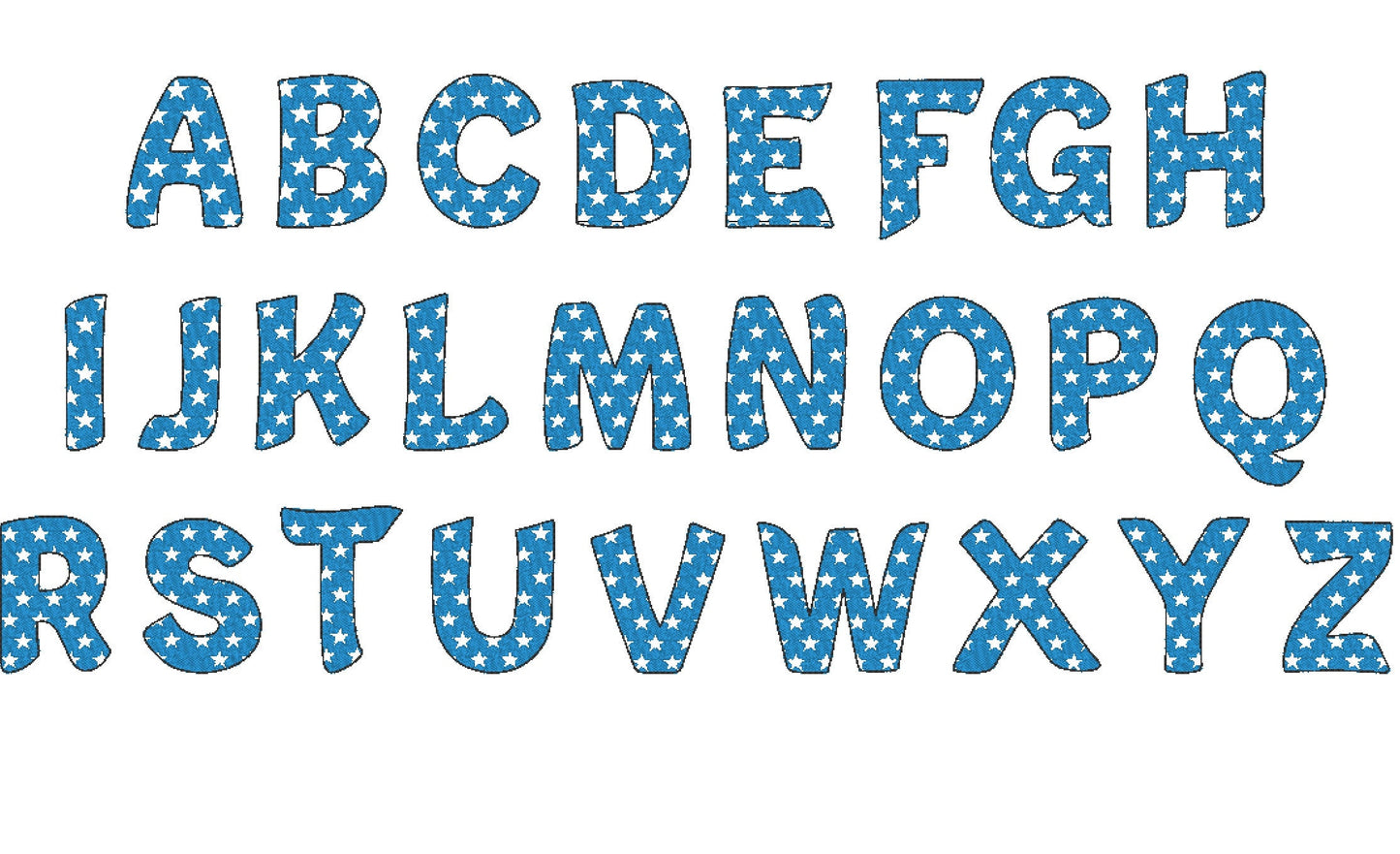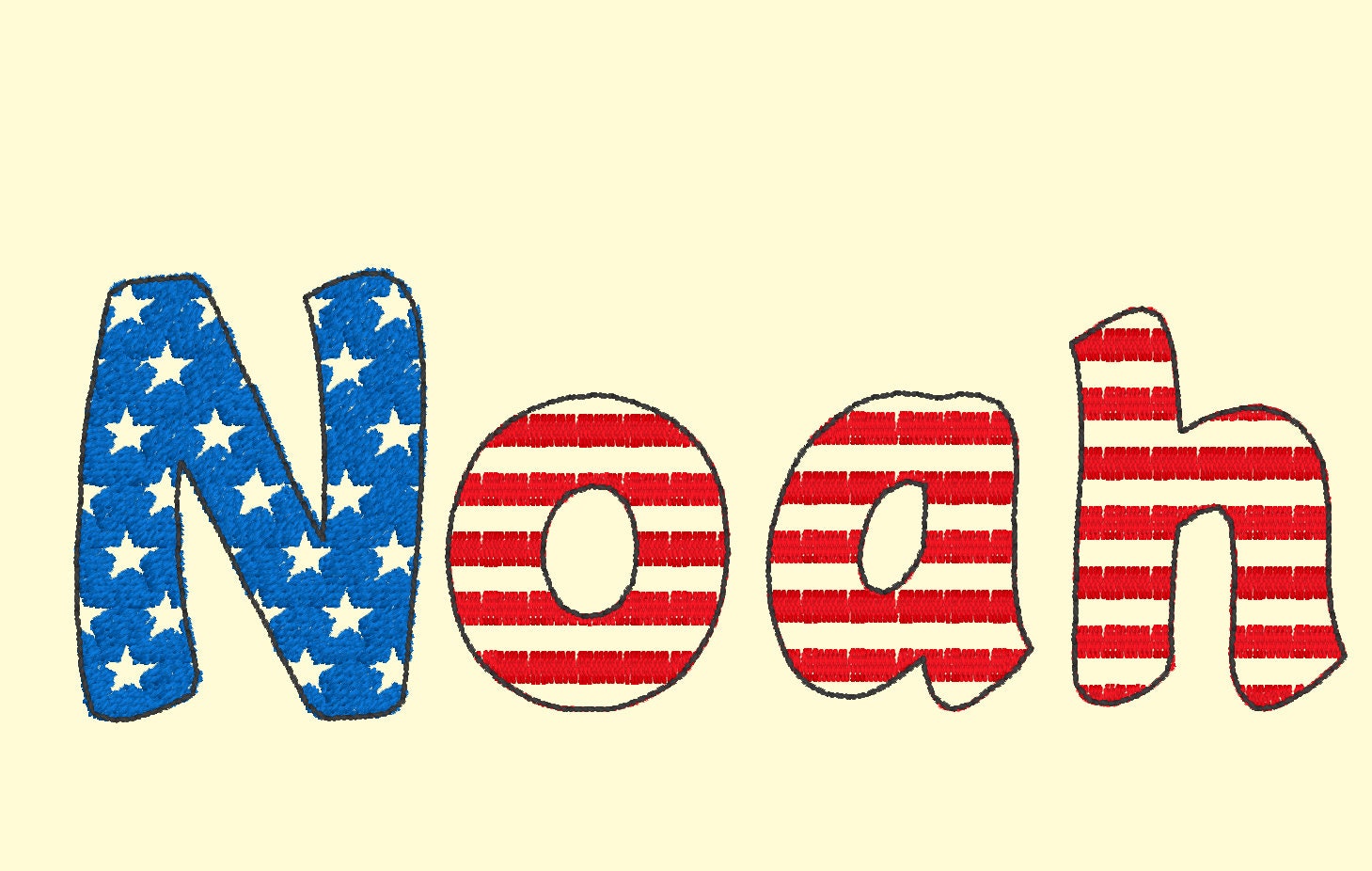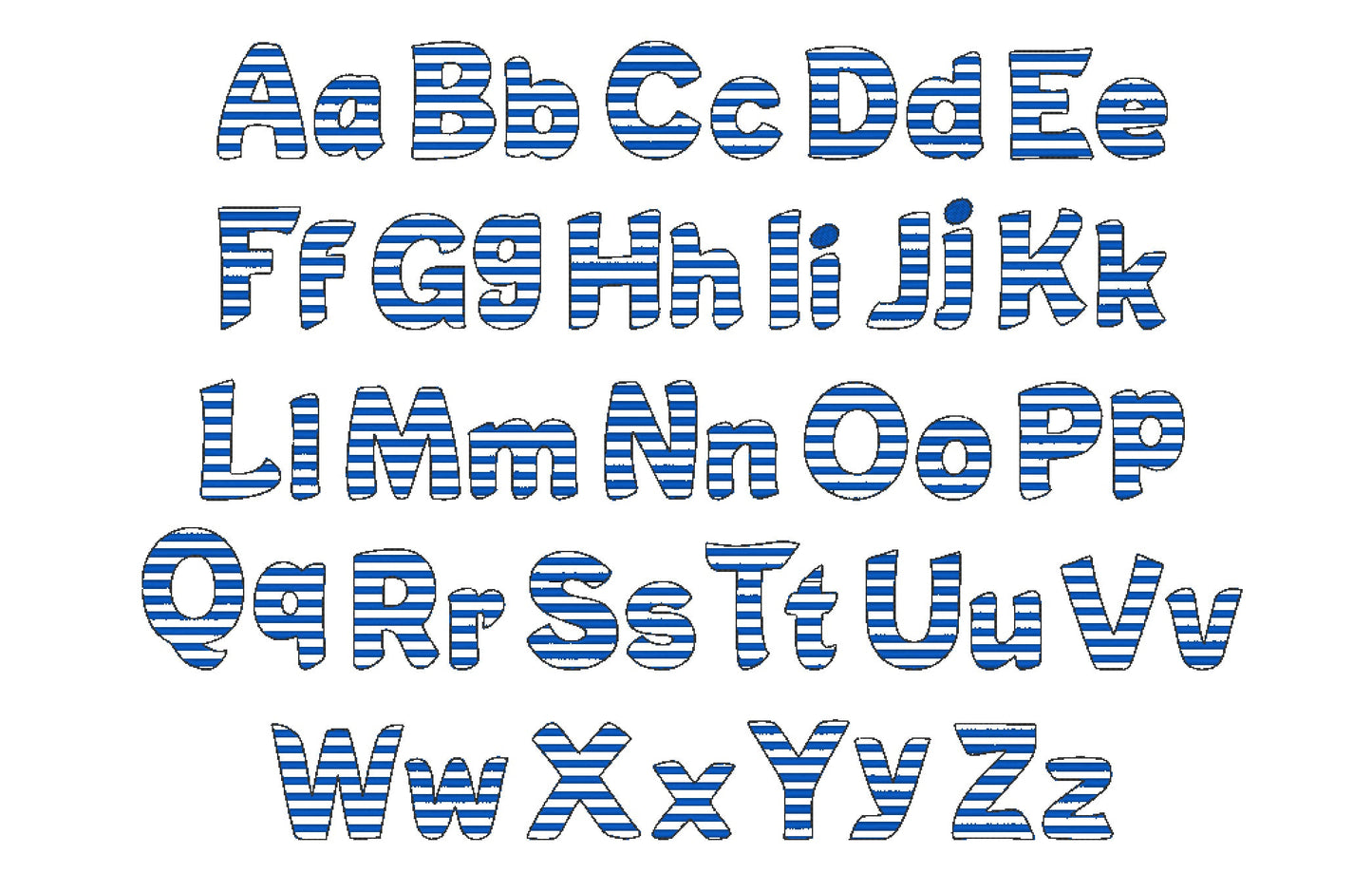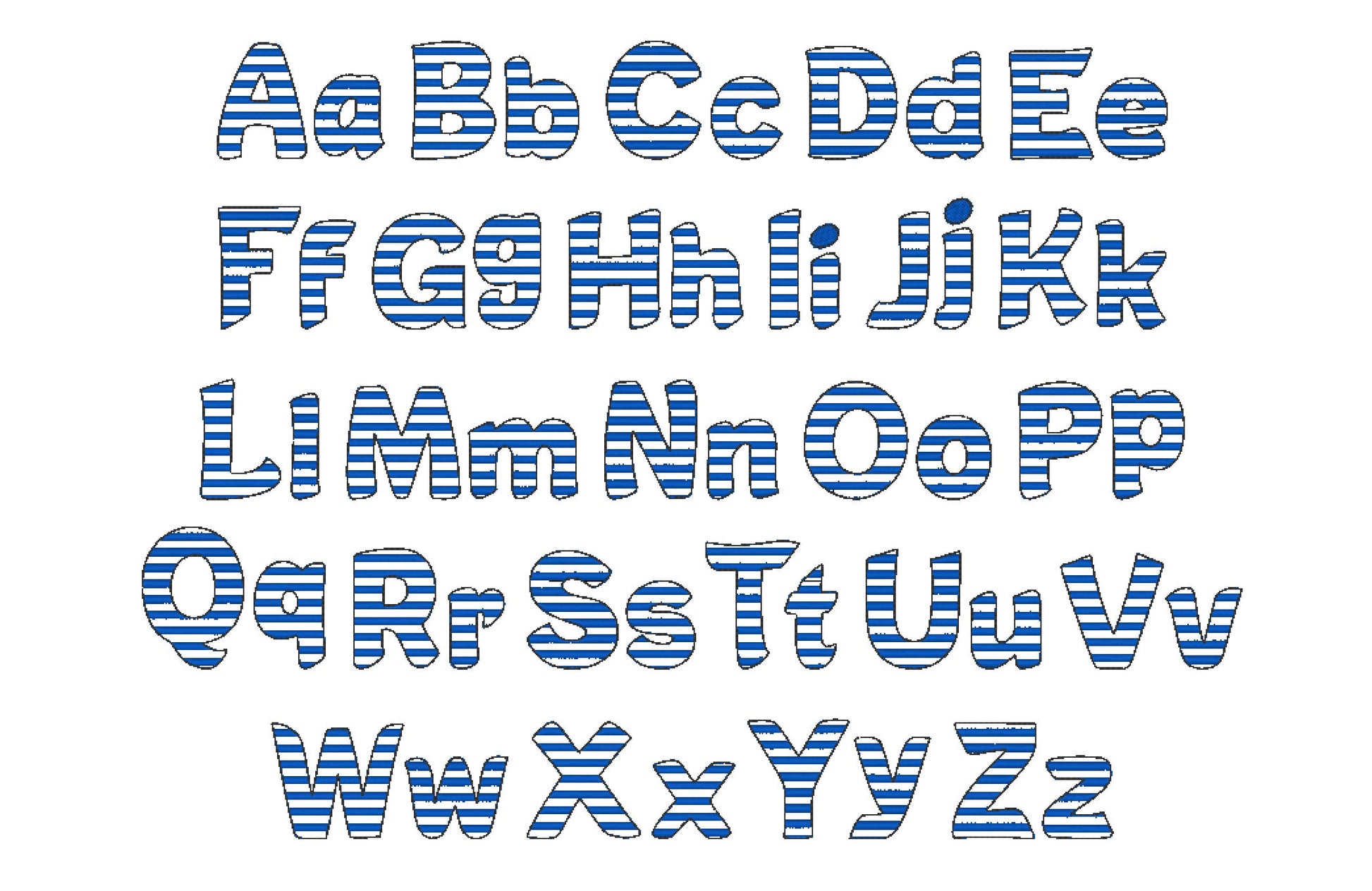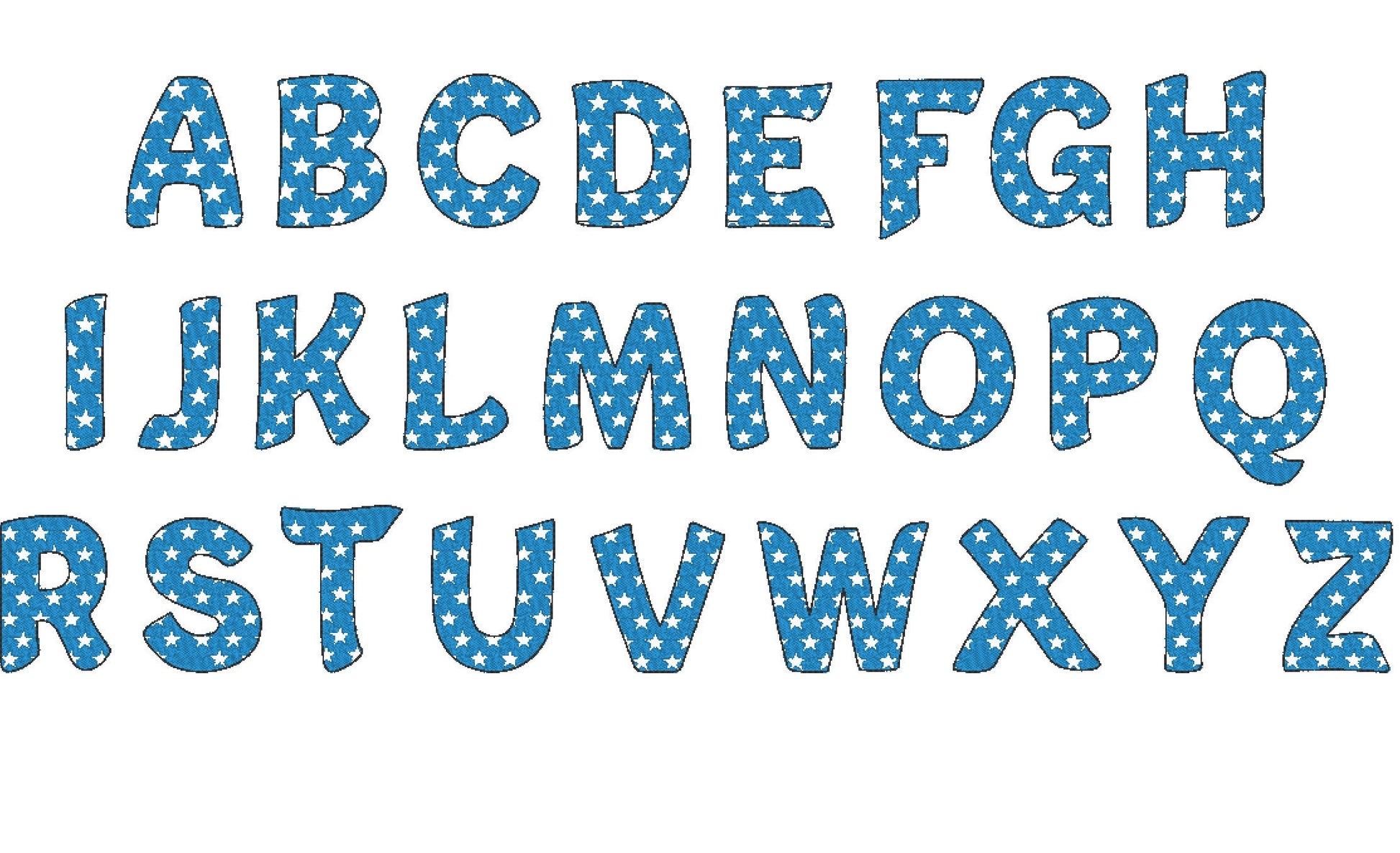
Or click to open the linkTwo patriotic stars and stripes fonts with a light sketch outline, for Fourth of July names on shirts and pillows.
A quick stitch that looks like lace; the stars and lines are part of the embroidery. The star font has uppercase letters; the stripe font has uppercase and lowercase letters. Four sizes: 1.2, 1.6, 2 and 2.6 inches.